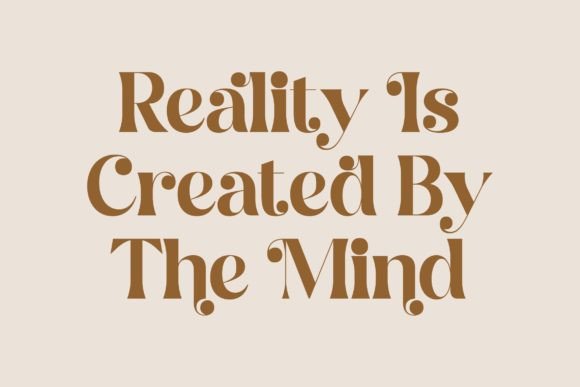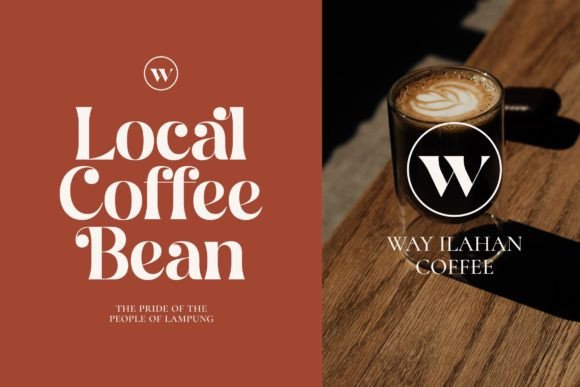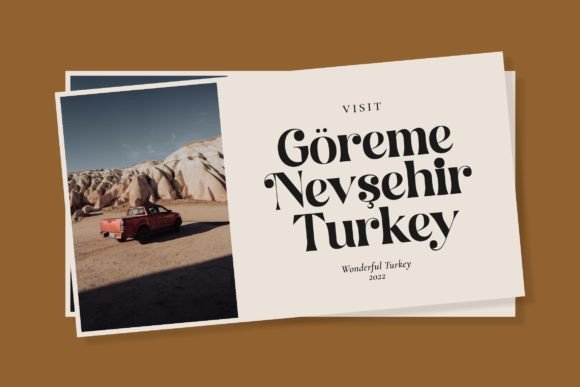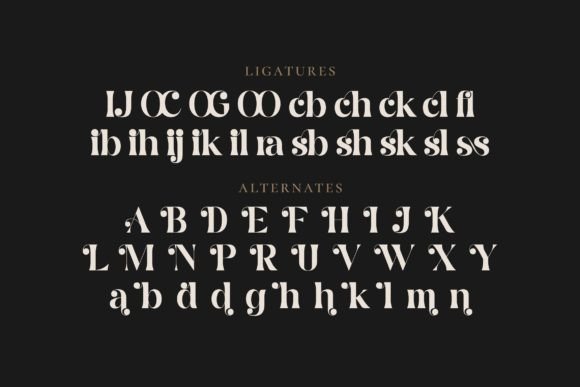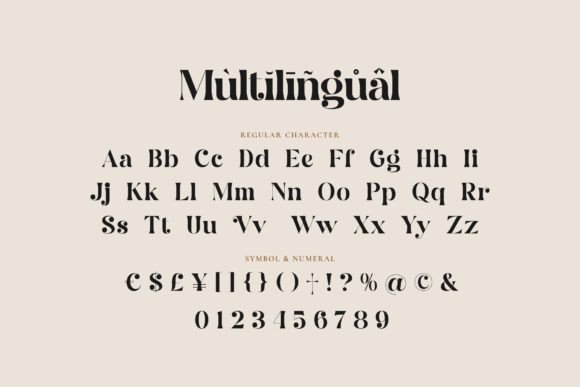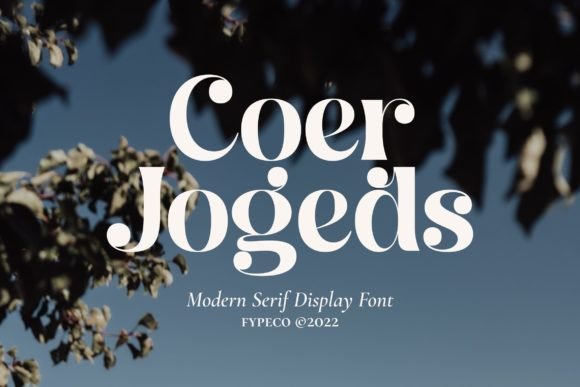
Introducing Coer Jogeds Font: Elevate Your Designs with a Unique Serif Display Font
In the world of typography, a font can make or break a design. For designers and crafters looking to add a touch of elegance and versatility to their projects, Coer Jogeds Font is an excellent choice. This unique serif display font is designed to impress, boasting a wide range of alternates and ligatures that make it perfect for a variety of applications.
What Sets Coer Jogeds Apart
Coer Jogeds Font is not just another serif font. Its distinctive style and extensive feature set make it stand out from the crowd. Here are some key features that make Coer Jogeds a must-have for designers:
- Unique Serif Design: Coer Jogeds features a classic serif design with a modern twist, making it perfect for projects that require a touch of sophistication.
- Extensive Alternates and Ligatures: With a wide range of alternates and ligatures, Coer Jogeds offers unparalleled flexibility, allowing designers to experiment with different styles and create unique text arrangements.
- Versatility: Whether you’re working on a large-scale project or a small design, Coer Jogeds performs beautifully at both large and small sizes.
Coer Jogeds Font is incredibly versatile, making it suitable for a wide range of design projects. Here are some ideas to get you started:
- Editorial Projects: Add a touch of elegance to your editorial designs, such as book covers, magazine spreads, and newspaper articles.
- Logo Design: Create a lasting impression with a custom logo that showcases your brand’s personality and style.
- Clothing Branding: Elevate your fashion brand with a stylish font that reflects your unique aesthetic.
- Product Packaging: Make your product stand out on store shelves with eye-catching packaging that features Coer Jogeds Font.
- Magazine Headers: Create stunning magazine headers that grab attention and draw readers in.
- Text Overlays: Use Coer Jogeds Font as a stylish text overlay for background images, adding depth and visual interest to your designs.
Why Choose Coer Jogeds Font?
With so many fonts available, why choose Coer Jogeds? Here are just a few reasons why designers and crafters love this unique serif display font:
- High-Quality Design: Coer Jogeds Font is designed with precision and attention to detail, ensuring a high-quality finish that will elevate your designs.
Coer Jogeds Font is a game-changer for designers and crafters looking to add a touch of elegance and sophistication to their projects. With its unique serif design, extensive alternates and ligatures, and versatility, this font is perfect for a wide range of applications. Whether you’re working on editorial projects, logo design, clothing branding, product packaging, magazine headers, or simply looking for a stylish text overlay, Coer Jogeds Font is an excellent choice. So why wait? Download Coer Jogeds Font today and take your designs to the next level!